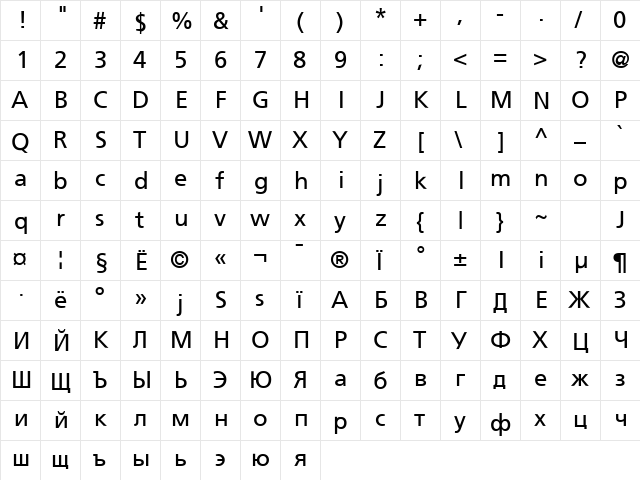
Foreigner Normal
Design Context for Foreigner Typeface
Foreigner takes a measured approach to typography — its balanced proportions and neutral character make it a reliable workhorse for both digital and print work.
Pro Tip: Pair Foreigner with a font of contrasting weight or personality to build a more expressive typographic hierarchy.